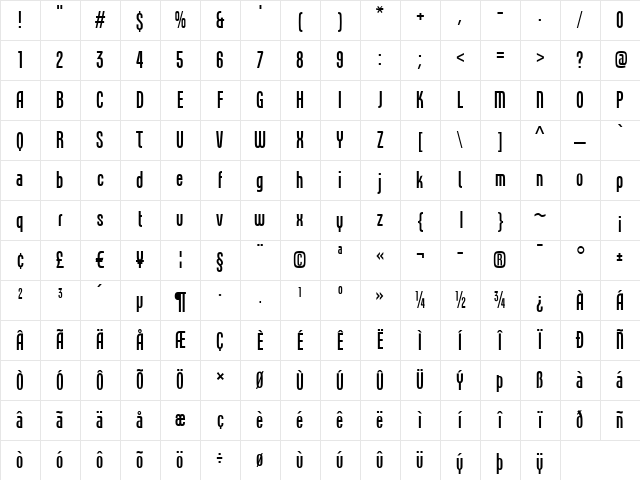
Freytag LT Regular
Design Context for Freytag LT
Freytag LT is a composed and adaptable typeface that performs quietly and consistently across a wide range of design contexts. Its slender proportions lend an understated elegance to any composition.